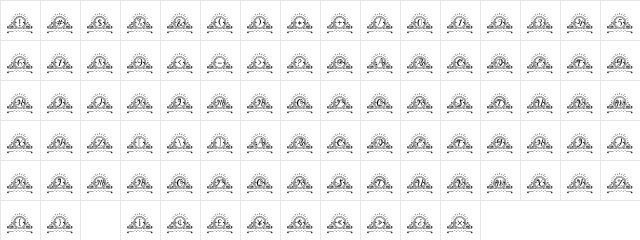
Belove Monogram Regular
| Foundry | Graphicxell |
| Designer | Usman Al Baehaqi |
Design Context for Belove Monogram Typeface
Belove Monogram uses fixed-width spacing throughout, giving it the structured, systematic character associated with coding environments and technical documentation.
A natural fit for code editors, technical documentation, developer-focused branding, and terminal-inspired UI.